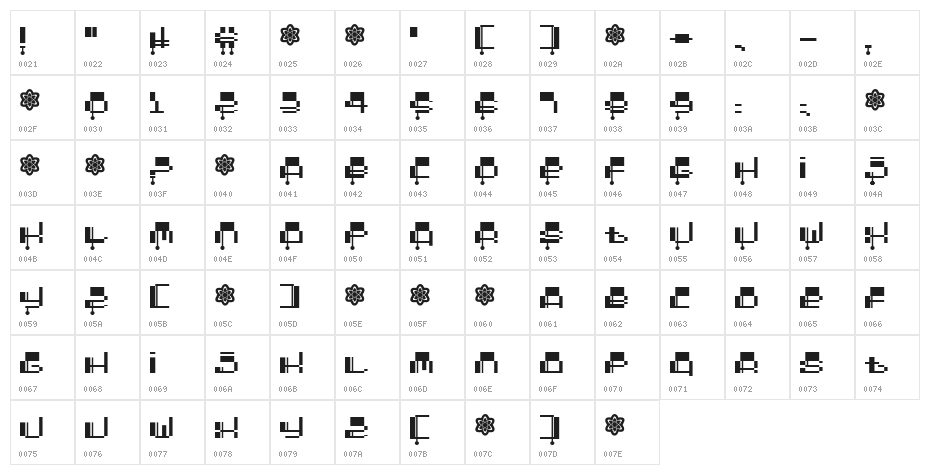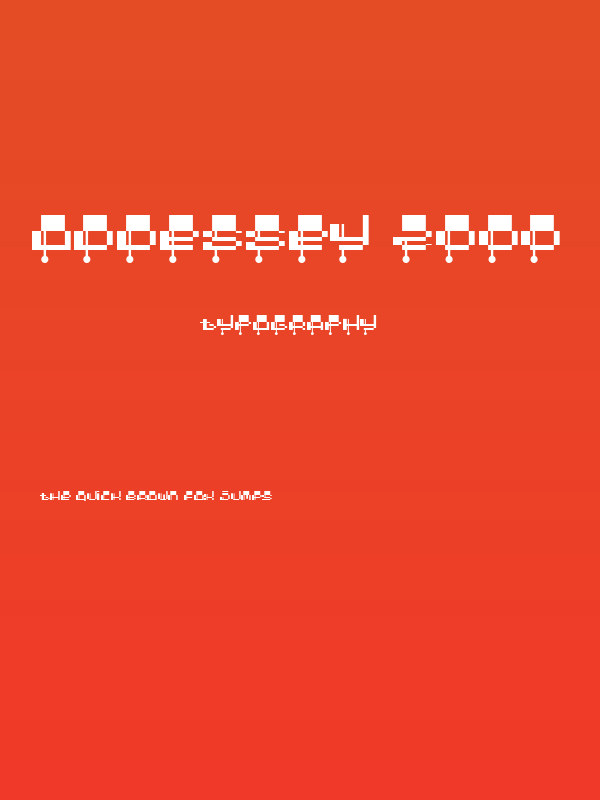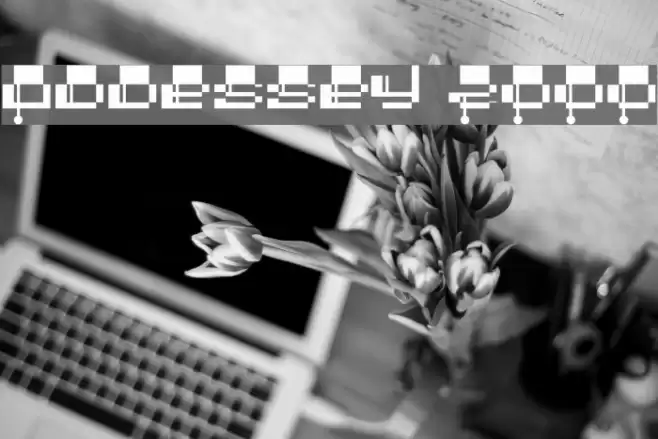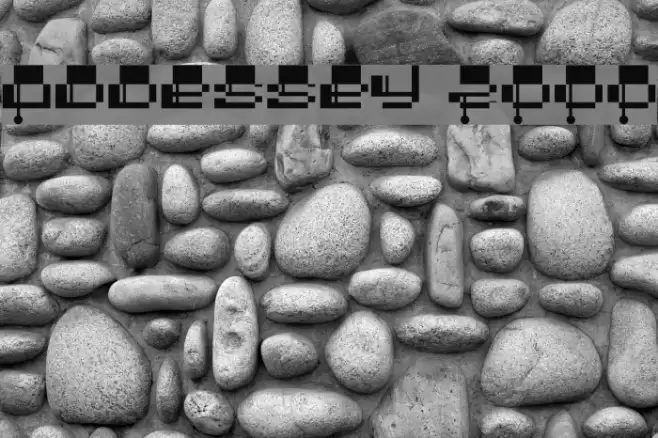
Oddessey 2000 Font
Oddessey 2000 Description
This font features a futuristic and digital aesthetic, characterized by its blocky and geometric shapes. Each character is composed of square and rectangular elements, often with small circular accents that give it a mechanical feel. The design is highly stylized, with a consistent use of sharp angles and straight lines, creating a sense of uniformity and precision. The font's unique style is reminiscent of early digital displays or retro-futuristic themes, making it stand out with its bold and unconventional appearance.
| Overall Style | Futuristic, Digital |
| Use Case | Logos, Headlines, Posters |
| Proposed Projects | Ideal for sci-fi themed projects, video game graphics, tech branding, or any creative work requiring a futuristic touch. |